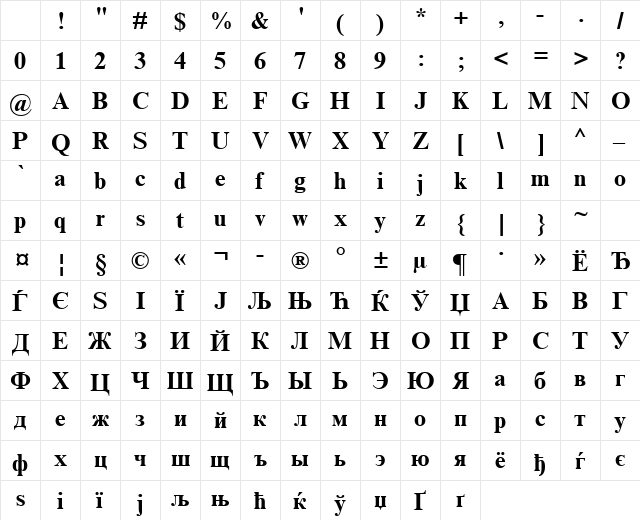
Complete Times New Roman Cyr Bold glyph index. Displaying only characters natively supported by Times New Roman Cyr Bold font.
Times New Roman Cyr is a composed and adaptable typeface that performs quietly and consistently across a wide range of design contexts. Its bold stroke weight gives it real presence on the page.
Pro Tip: Use Times New Roman Cyr in both headline and body roles to test its range before committing to a single application.